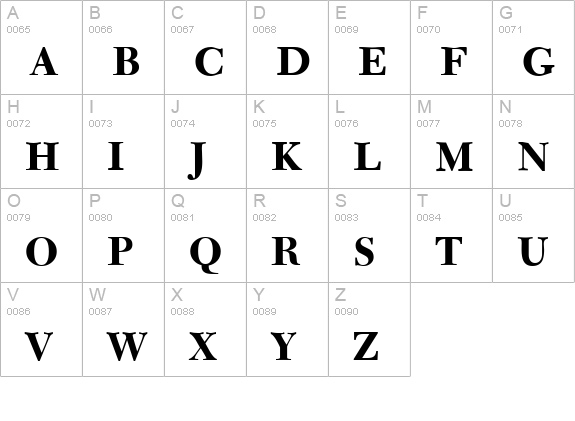
C651-Roman-Bold Font Details
C651-Roman-Bold is a strong, high-contrast variant in the C651 typeface family \xE2\x80\x94 well suited to headlines, attention-grabbing titles, and strong calls-to-action.
C651-Roman-Bold is a modern and stylish font that exudes confidence and sophistication. Its bold letterforms command attention and make a strong statement in any design project. This versatile typeface is perfect for headlines, titles, logos, and other display purposes. With its clean lines and classic proportions, C651-Roman-Bold adds a touch of elegance to any layout. What sets this font apart is that it is available for free download at FontsMarket.com. Whether you're a professional graphic designer or a casual hobbyist, you can easily access this high-quality font without any cost. Don't miss out on the opportunity to enhance your projects with the bold and striking C651-Roman-Bold font today!